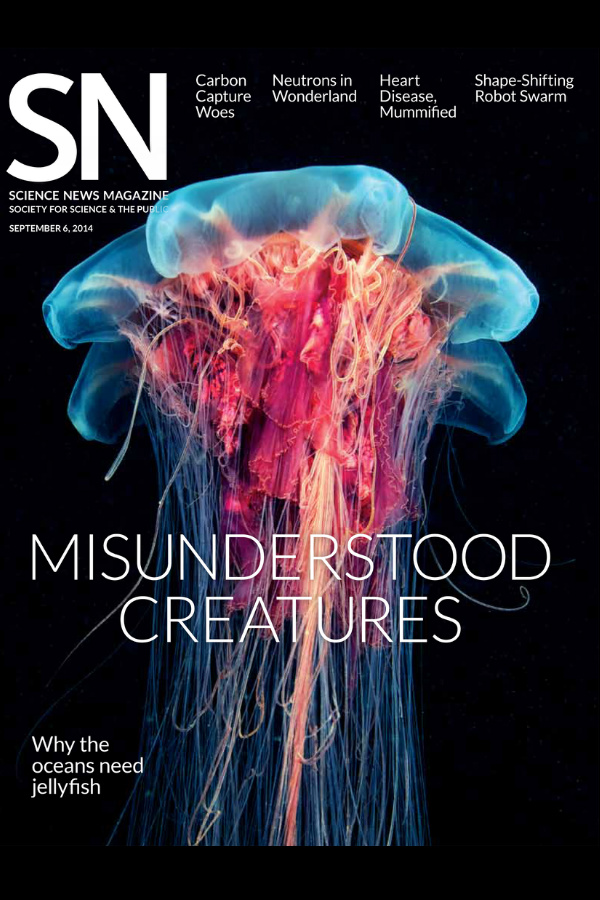
Science News Font
BookScience News is a weekly magazine that was first published in 1922 and is known for its accurate and concise reporting on important scientific research and discoveries.
It is likely that the Kievit Medium font was utilized for the "SN" logo featured on the cover. Designed by Michael Abbink in 2011, Kievit Medium is a contemporary sans serif font that combines elements from traditional sans serif fonts like Frutiger and Univers, as well as classic styles such as Garamond.